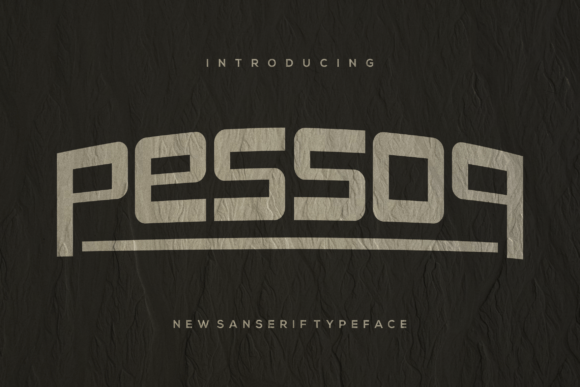
Welcome to the world of Pessoq, a typeface that embodies sophistication, elegance, and a touch of edginess. This modern display font from cozzdesign0 is not just a collection of letters; it's an artistic expression that will elevate your creative projects to new heights.
Immerse yourself in the allure of Pessoq, meticulously crafted to leave a lasting impression. With its sharp lines and captivating curves, each character exudes a sense of confidence and individuality. Whether you're a seasoned designer or just starting your creative journey, Pessoq is your perfect companion, ready to add a touch of brilliance to your work.
Unleash your creativity and let Pessoq guide you towards a world of endless possibilities. Its versatility knows no bounds, making it the ideal choice for a wide range of projects. From sleek logos that demand attention to eye-catching social media posts that leave a lasting impression, Pessoq effortlessly adapts to your vision, transforming ordinary designs into extraordinary masterpieces.
Step into the spotlight with Pessoq, a font that commands attention and leaves an indelible mark on your audience. Its bold presence will captivate their senses, drawing them into your message and leaving them craving more. Experience the transformative power of Pessoq as your designs take center stage, captivating and enchanting all who encounter them.
Embrace the allure of Pessoq and embark on a creative journey like no other. Its modern aesthetic and timeless appeal will elevate your designs, adding a touch of sophistication that sets you apart from the crowd. Prepare to be mesmerized as Pessoq takes your creations to new heights, leaving a trail of beauty and inspiration wherever it goes.